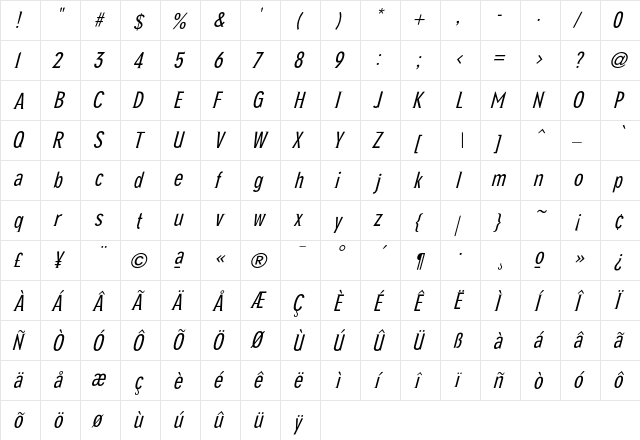
NewGlobalLight Italic
Design Context for NewGlobalLight Typeface
NewGlobalLight is a composed and adaptable typeface that performs quietly and consistently across a wide range of design contexts. Its italic angle brings a sense of urgency and motion to the letterforms. The delicate stroke weight brings airiness and refinement to layouts.
Pro Tip: Try NewGlobalLight for annotation and caption copy alongside an upright companion — the contrast in angle creates a dynamic but ordered typographic system.